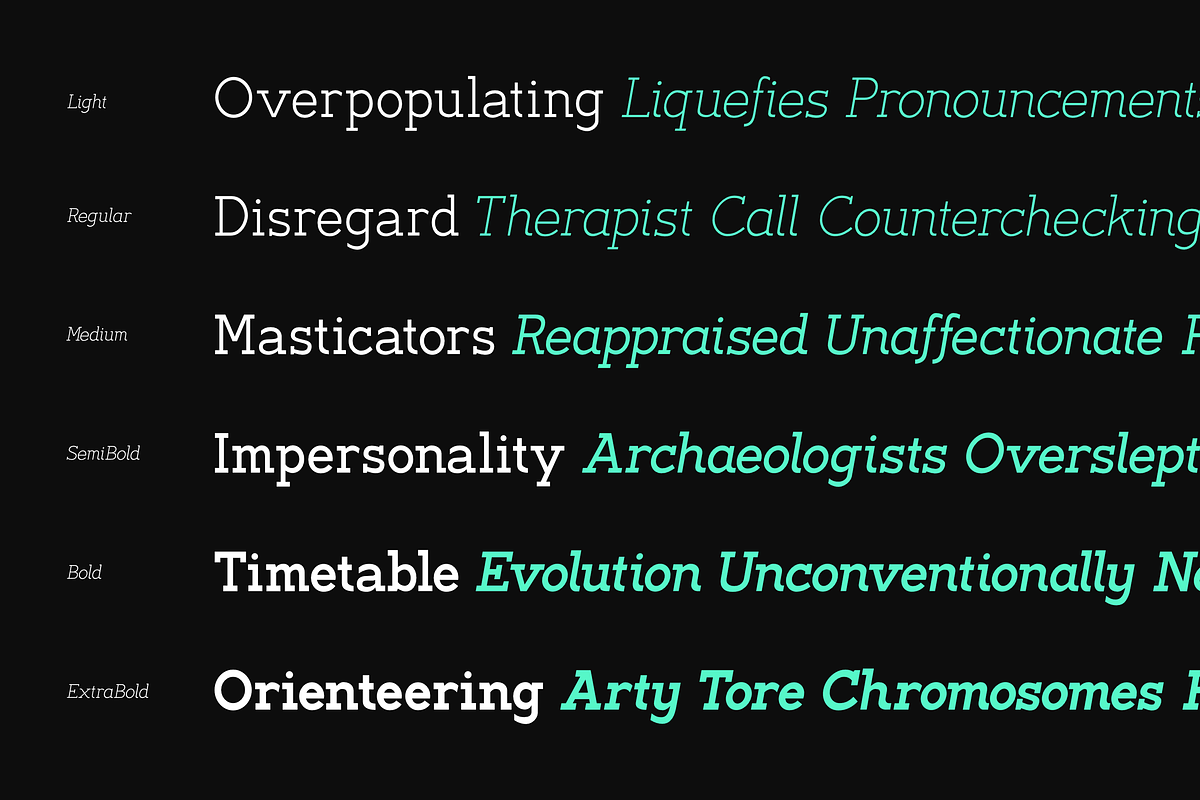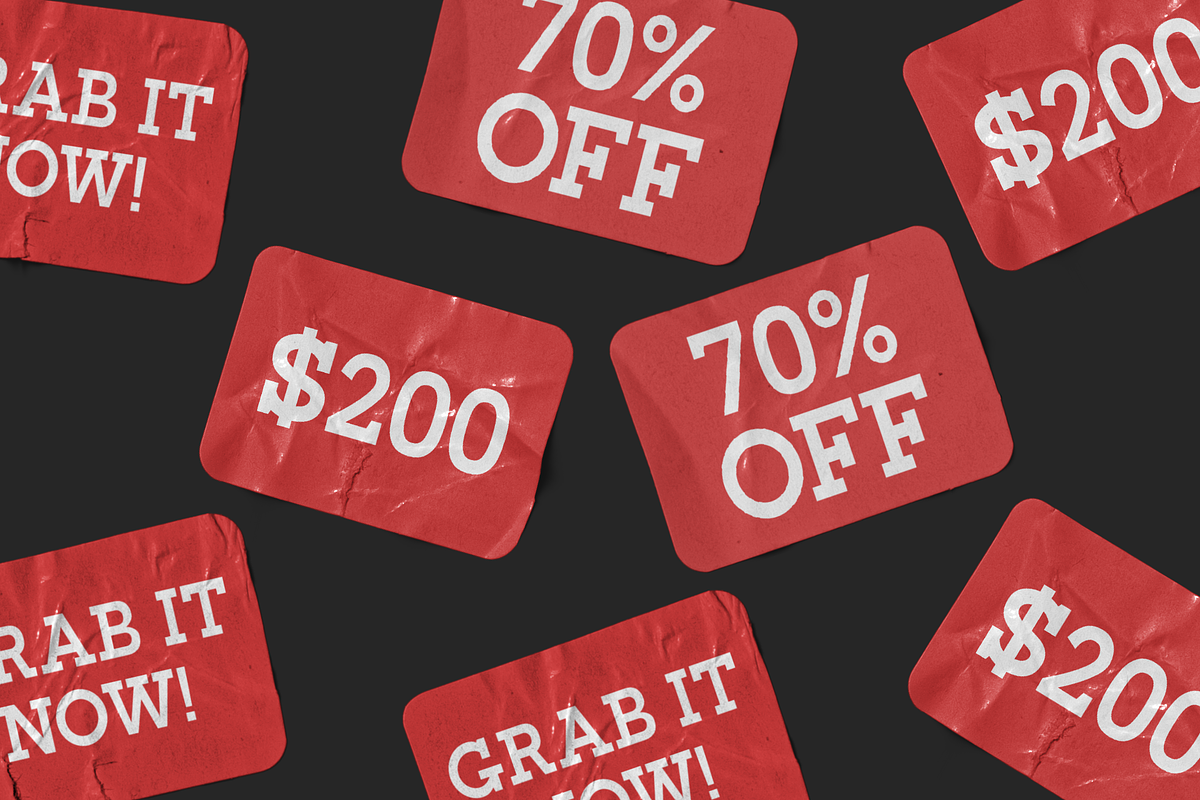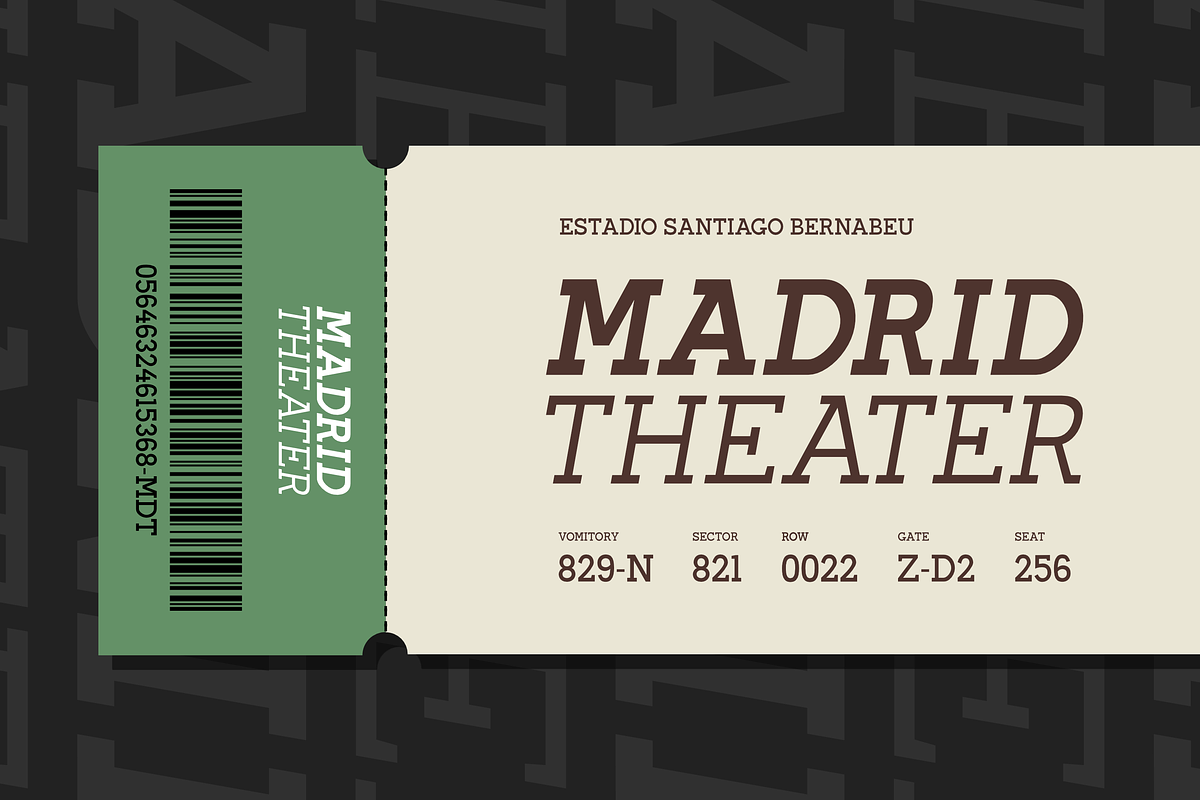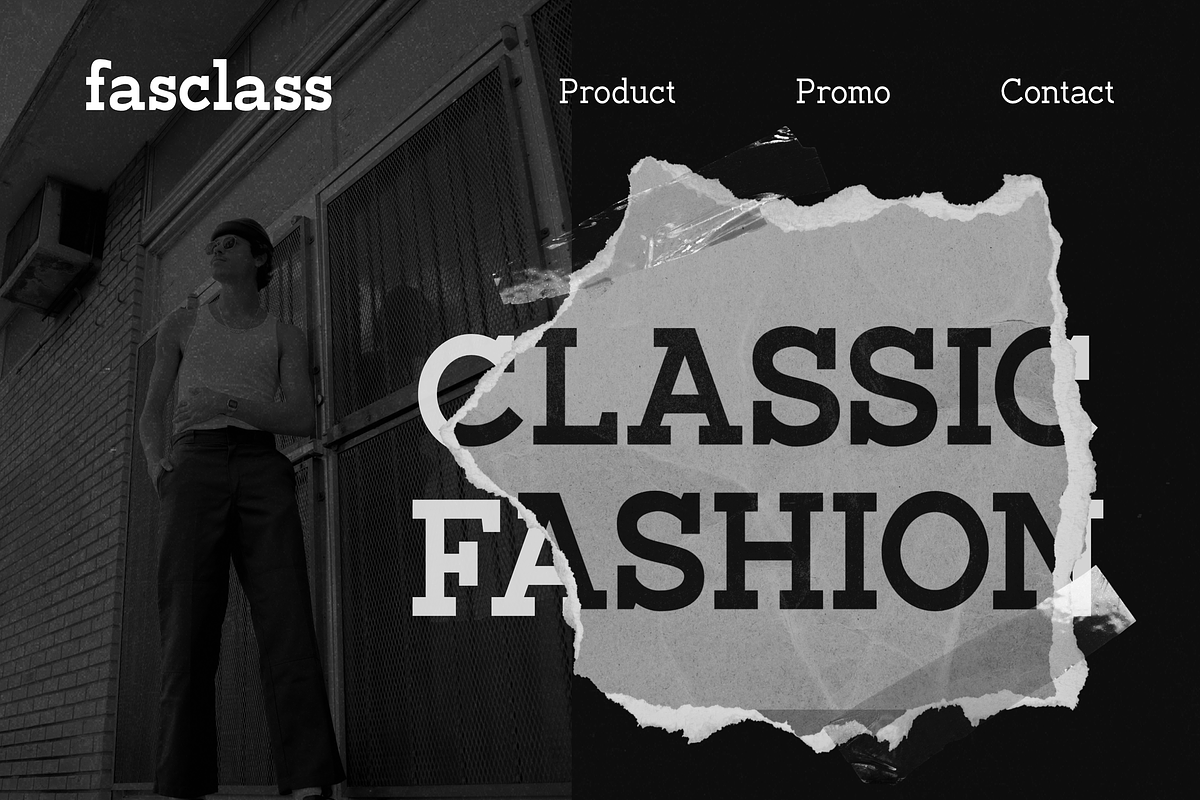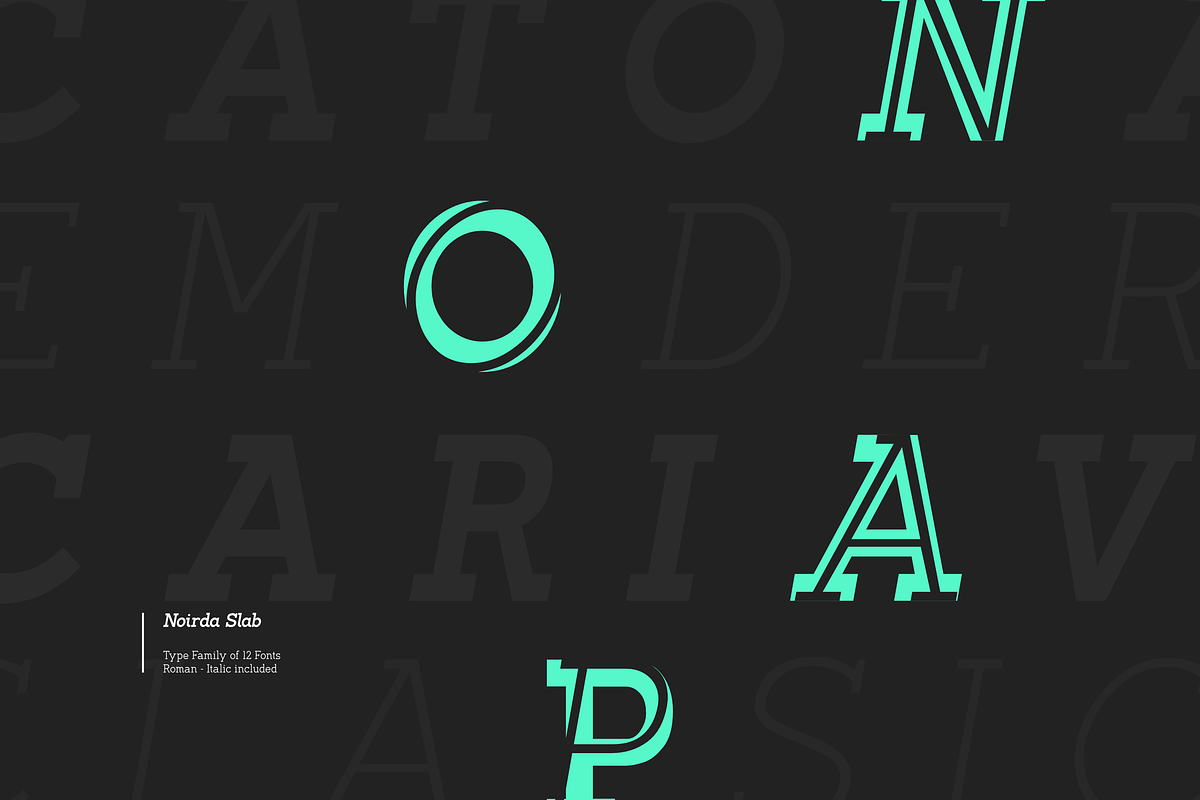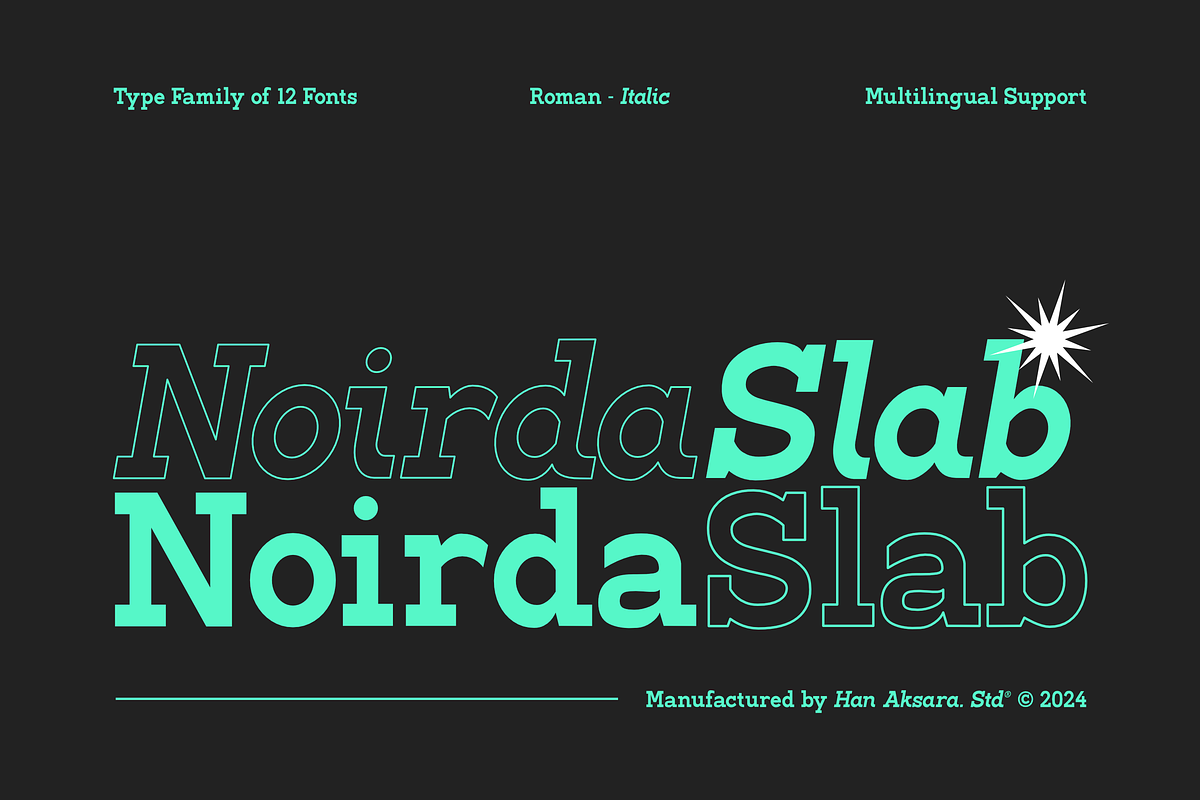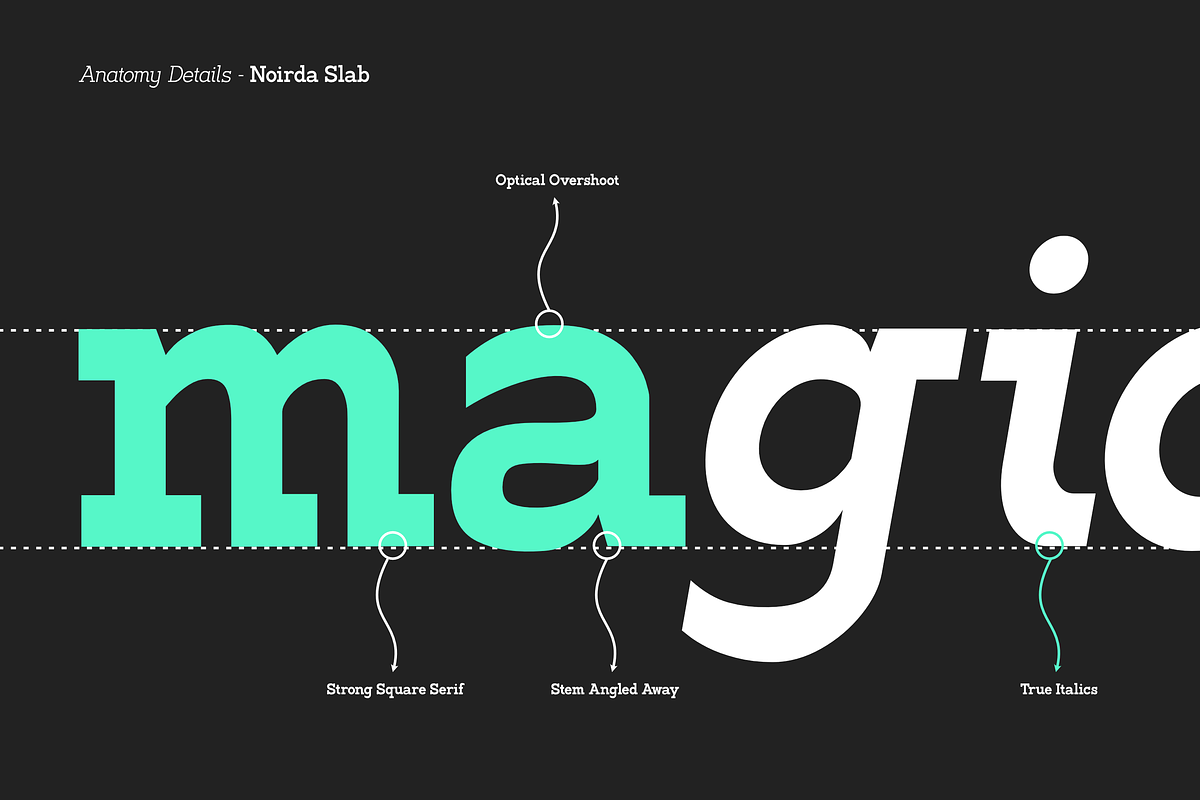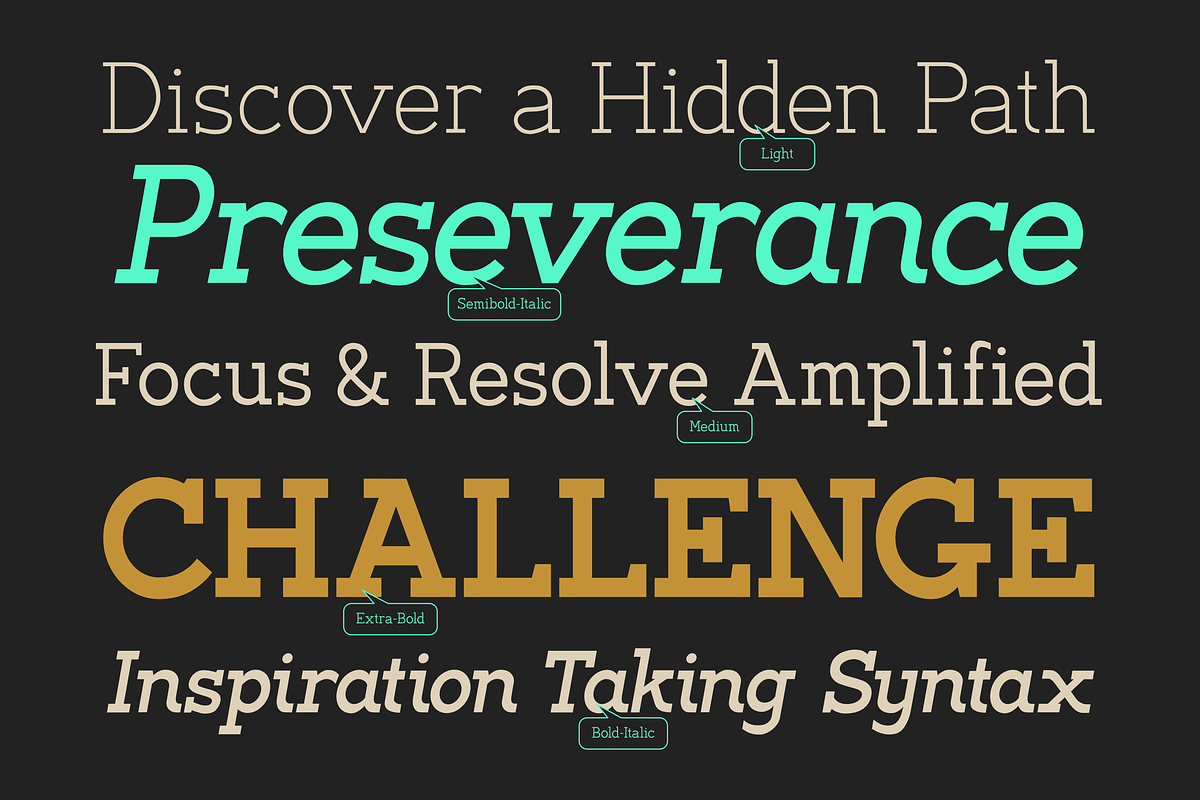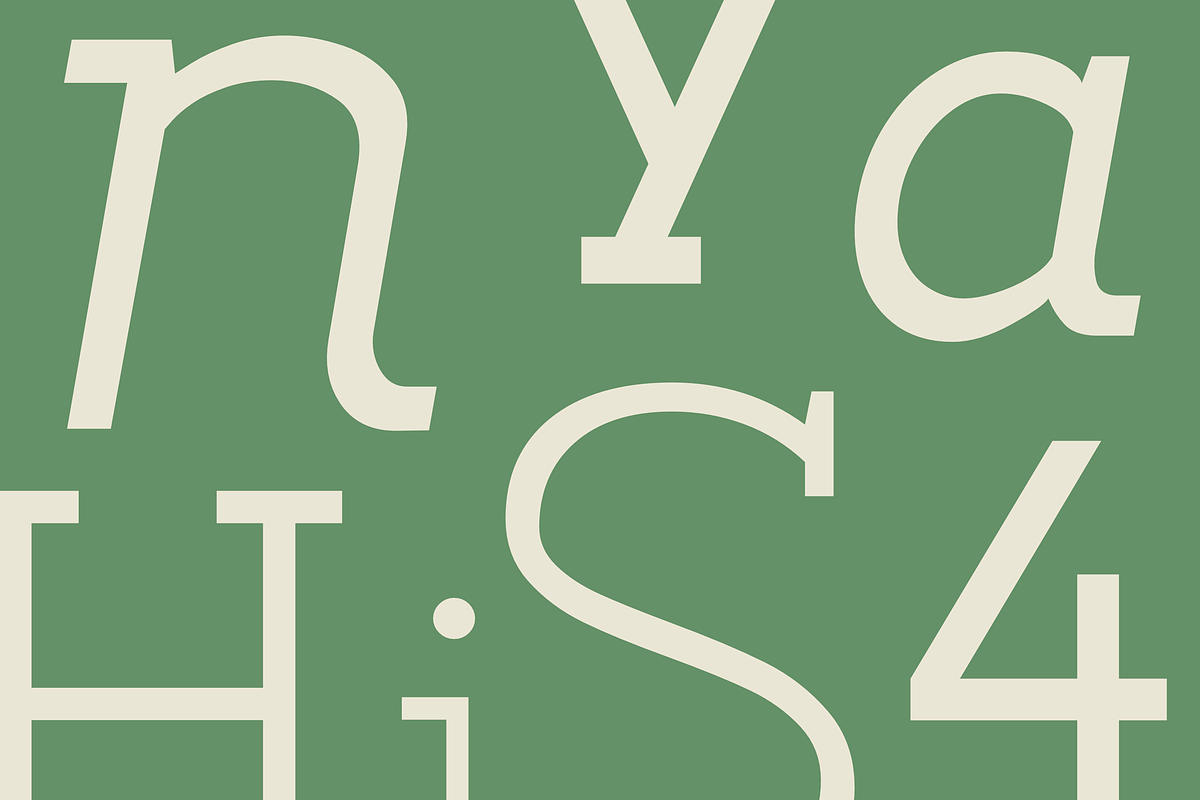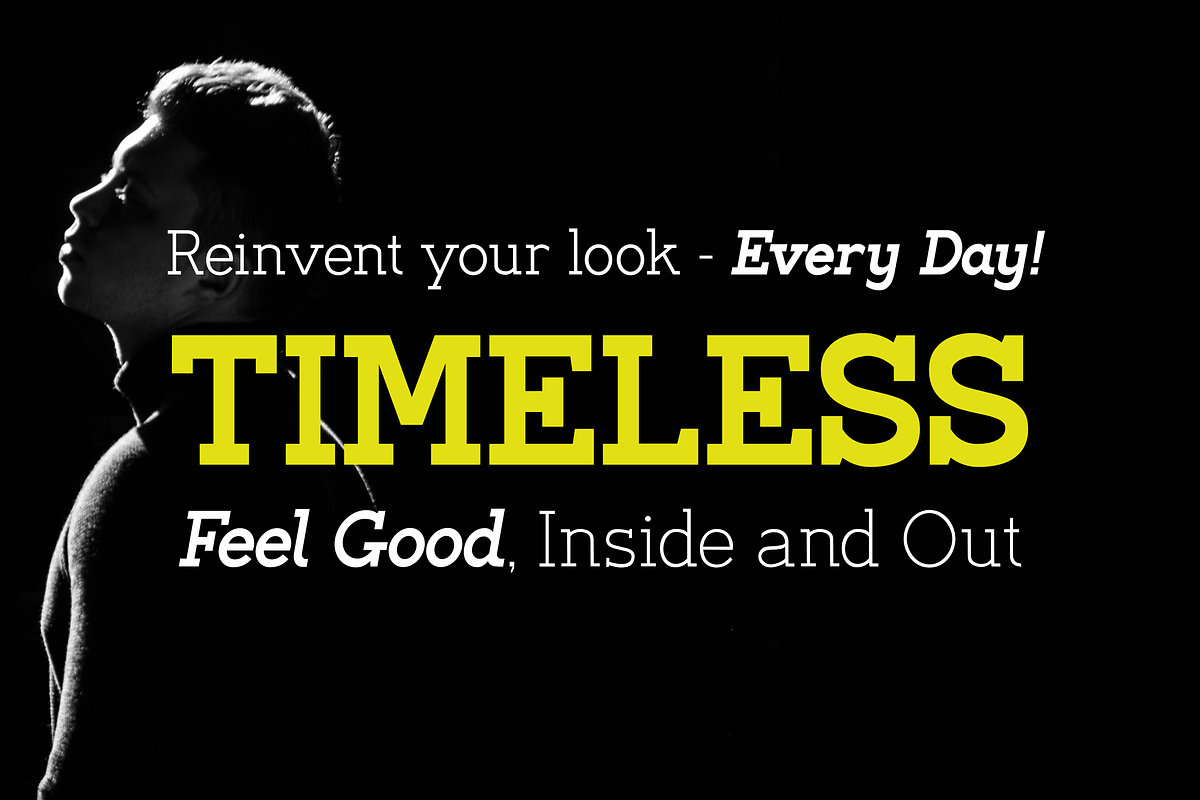
Noirda Slab Serif
Introducing a Bold Classic with a Modern Twist
Elevate your design projects with a slab serif font that embodies boldness, masculinity, and a timeless sense of classic style. This font stands out with its robust, authoritative forms and distinctive serif strokes, creating a powerful visual impact while embracing a modern flair. Its traditional slab serif roots are infused with a contemporary edge, making it a versatile choice for both vintage-inspired and modern design contexts.
With 6 dynamic weights—ranging from Light to Extra Bold—each accompanied by an italic style, this font offers a broad spectrum of options to suit any design need. Whether you're crafting eye-catching posters, memorable logos, engaging editorial layouts, or even intricate body text, this typeface ensures a strong, assertive presence that commands attention.
The font's design emphasizes high readability, ensuring clarity even at smaller sizes, which is crucial for maintaining impact in various applications.
Furthermore, this font supports 65 languages, including Afrikaans, French, Spanish, and Swedish, making it a global solution for diverse linguistic needs. Its adaptability across languages ensures that your designs can reach a wider audience while maintaining a consistent and powerful visual identity.
In summary, this typeface combines classic slab serif elegance with modern boldness, offering a versatile and impactful solution for all your design needs.